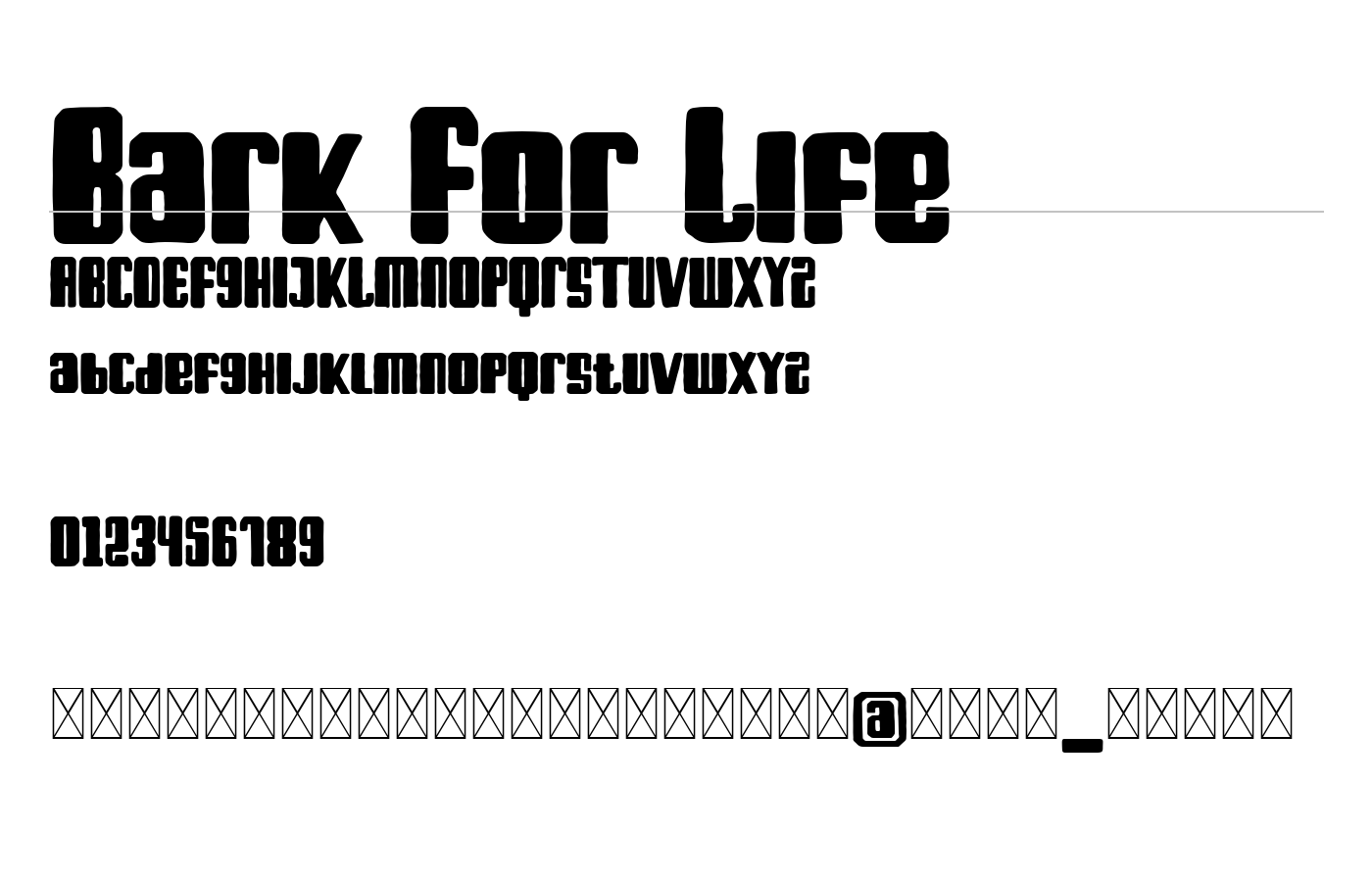
Bark For Life is a bold, condensed sans serif font with a distinctive, slightly playful character due to its rounded, blocky letterforms and unique letter shapes. Its heavy weight and tight spacing make it ideal for striking headlines, logos, and branding that seek to convey strength with a touch of personality. This font works well in creative, casual, or urban-themed designs looking for a strong visual impact.
Bark For Life Font
About Bark For Life Font